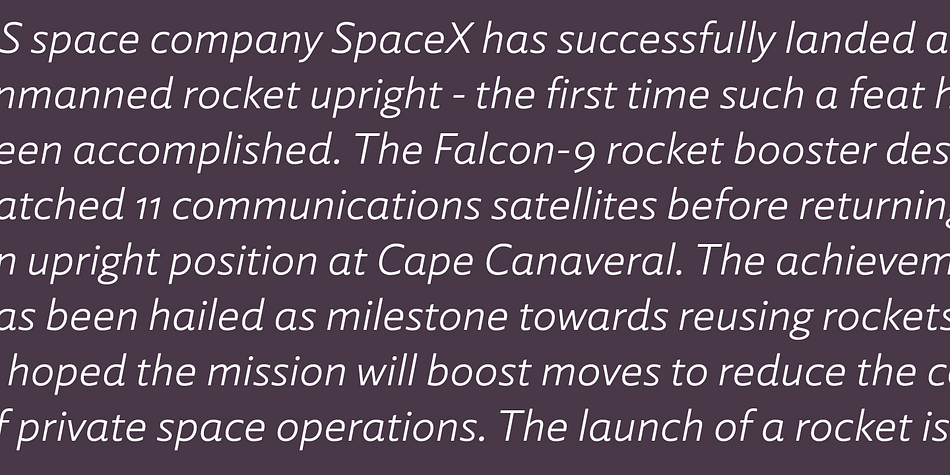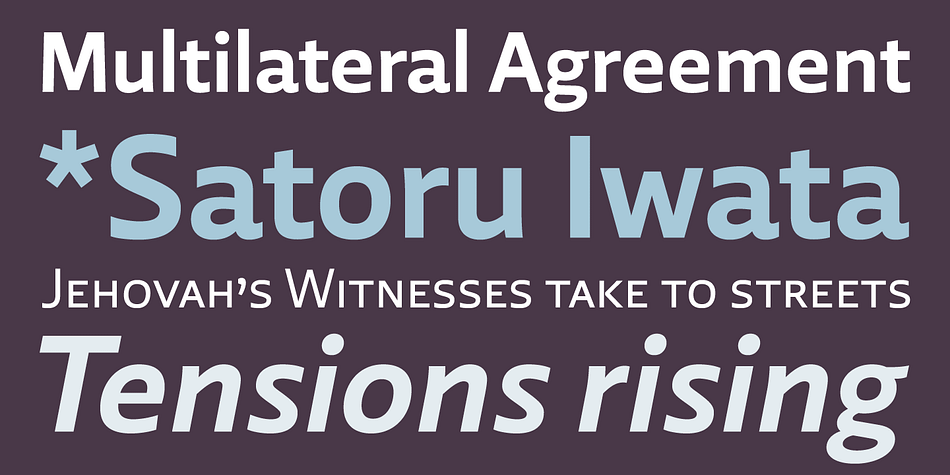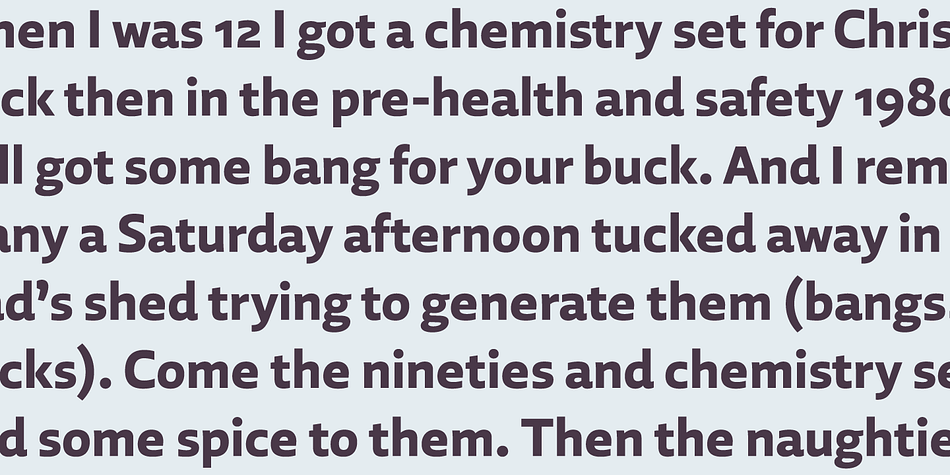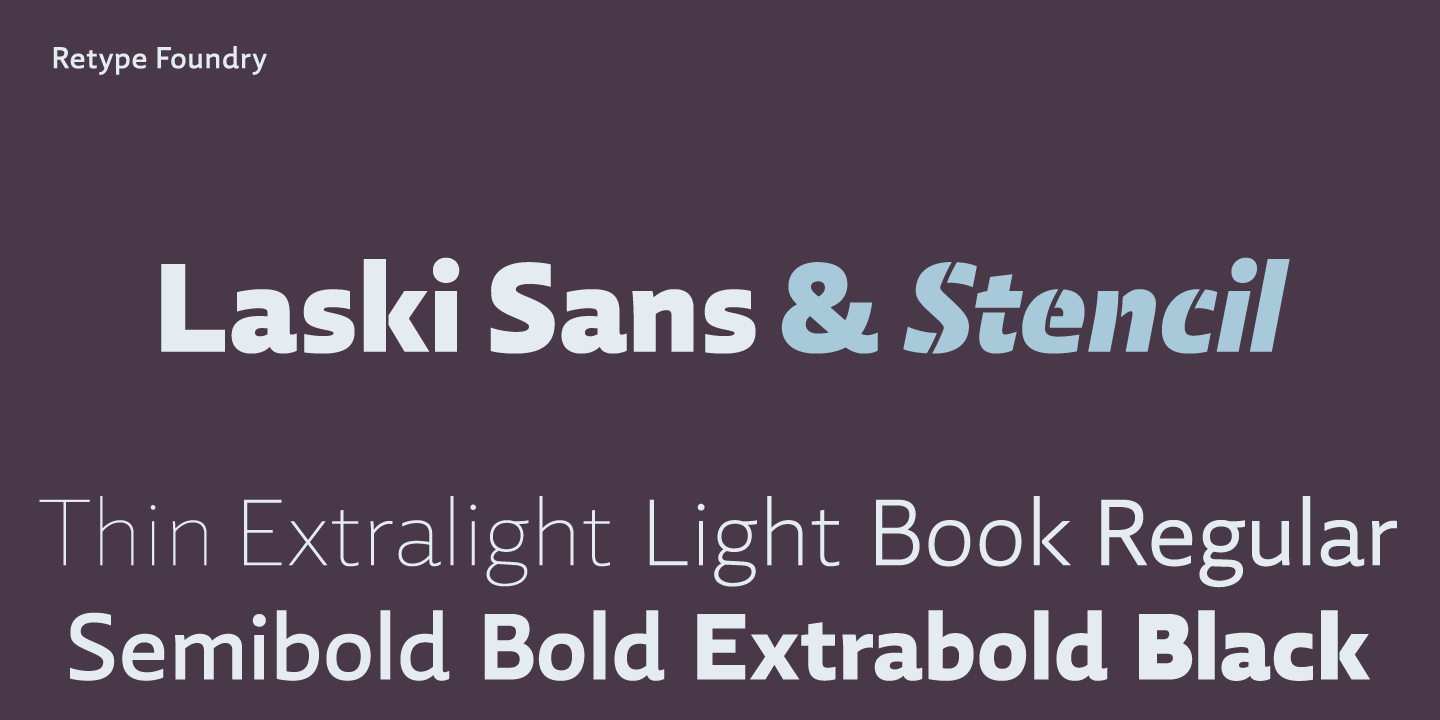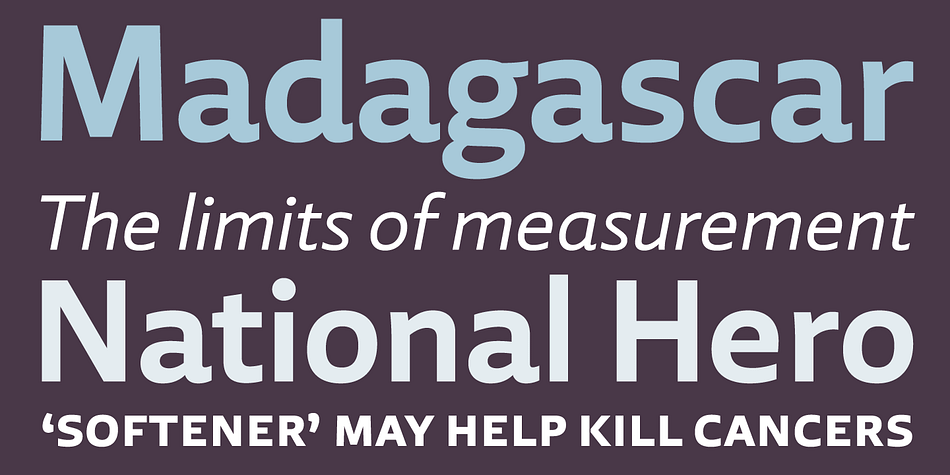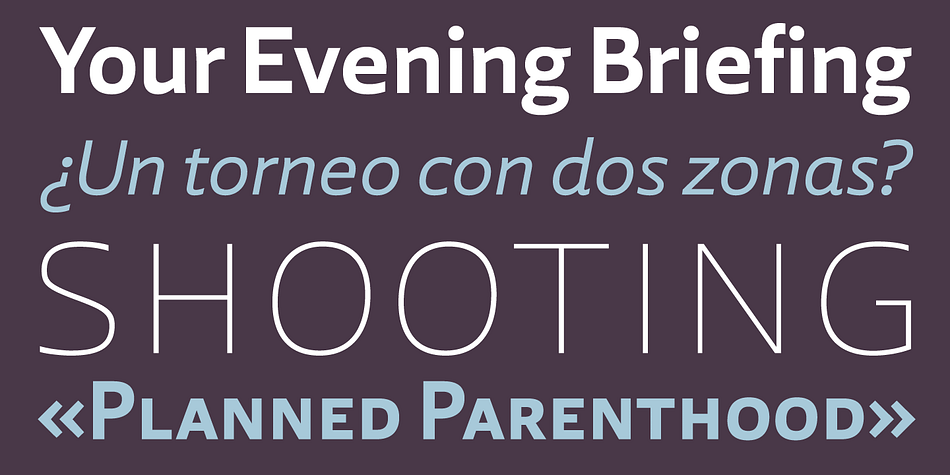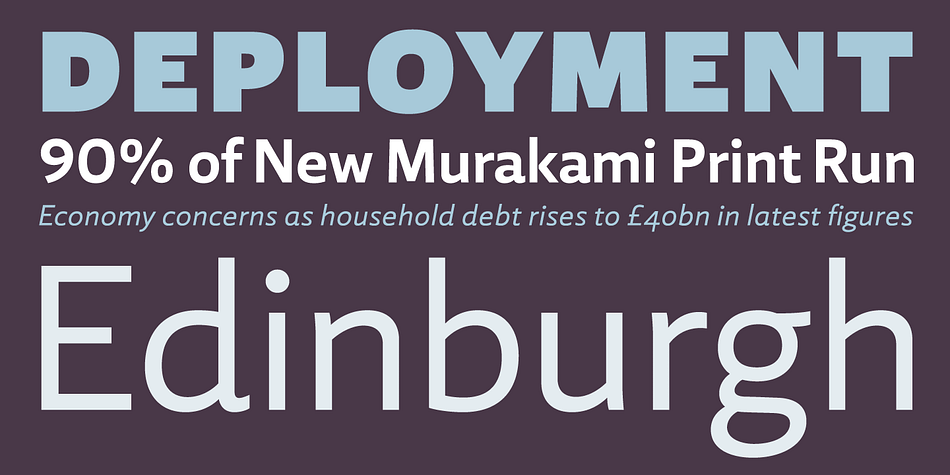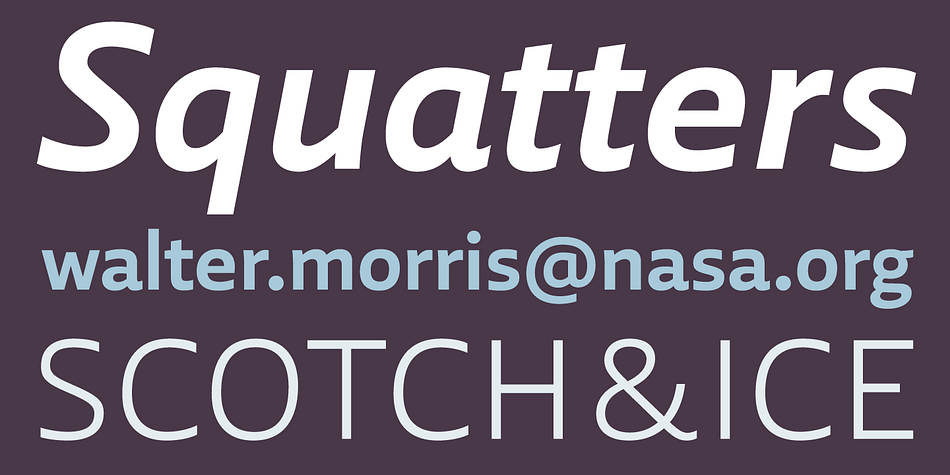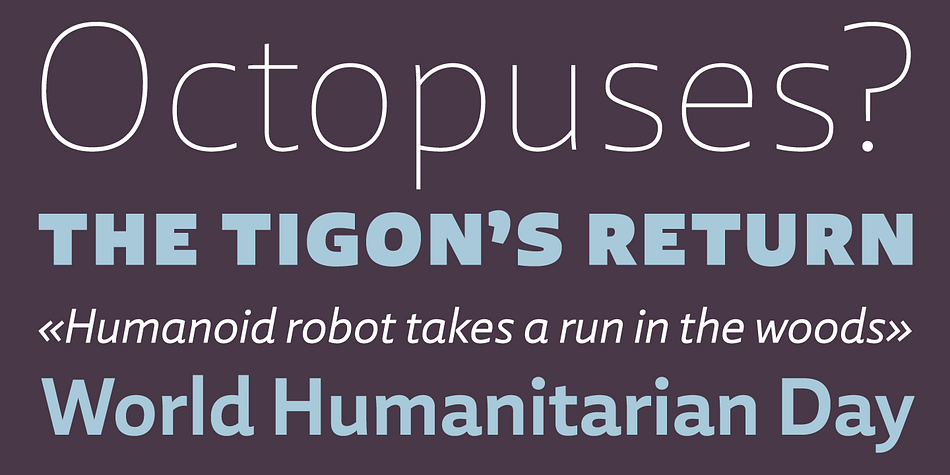
Designed by Ramiro Espinoza, Laski Sans is a sans serif and stencil font family. This typeface has twenty styles and was published by ReType.
In 2014 Paula Mastrangelo presented her first type family, Laski Slab. Over the last year, Ramiro Espinoza worked to expand the system and the outcome was Laski Sans, a refined humanistic sans addressing many of today’s design requirements, specifically optimized for editorial and corporate use.
Laski Sans is a family of 20 fonts with weights finely balanced so that they can be easily combined in a wide range of environments. Its open forms and solid structure grant a high legibility on paper and on screen. The moderate, legible proportions and neutral appearance make Laski Sans especially well suited for commercial publications like marketing collateral and advertising campaigns. The type’s generally reserved tone opens up in 2 showy stencil variants – Stencil Black & Stencil Black Italic – which considerably expand Laski’s creative potential for expressive headlines.
As might be expected from ReType, Laski Sans is a suite of feature-rich OpenType fonts fully equipped to tackle complex, professional typography. The character set includes small caps, fractions, alternate characters, case-sensitive forms, and 5 sets of numerals. Besides standard Latin, its extensive character set supports Central European, Baltic and Turkish languages.